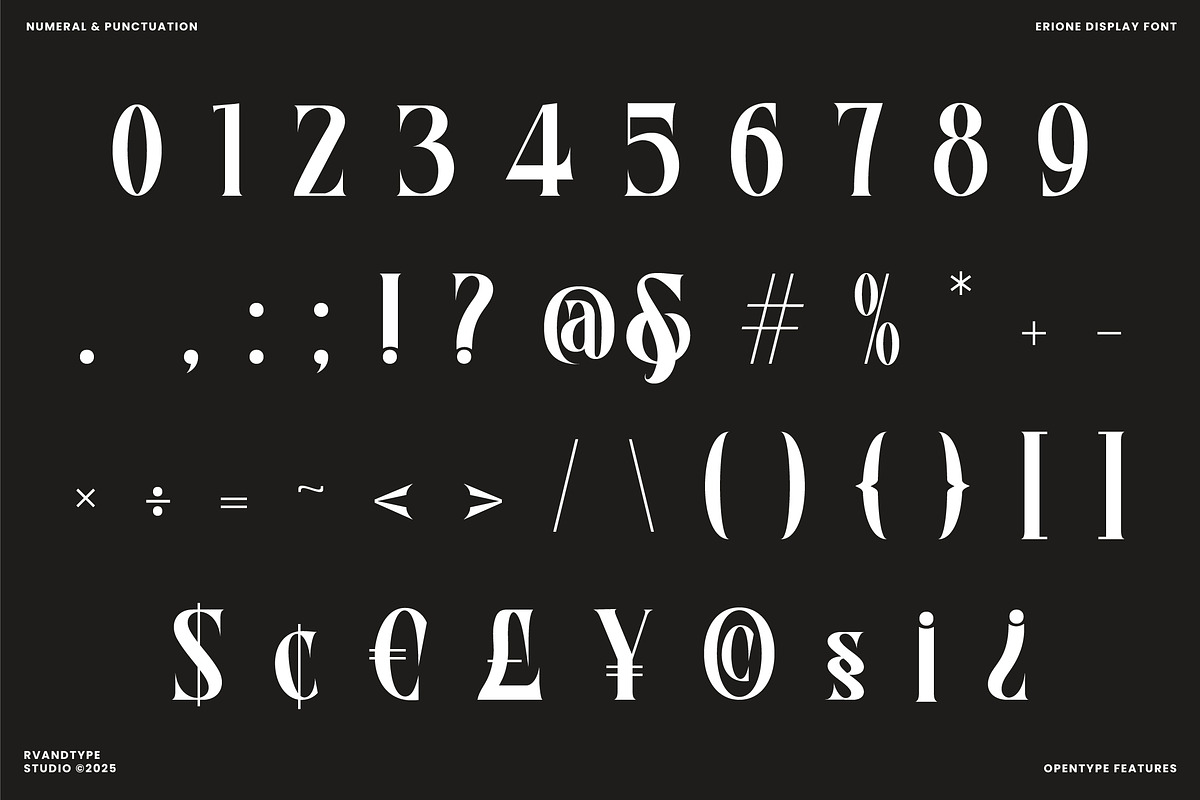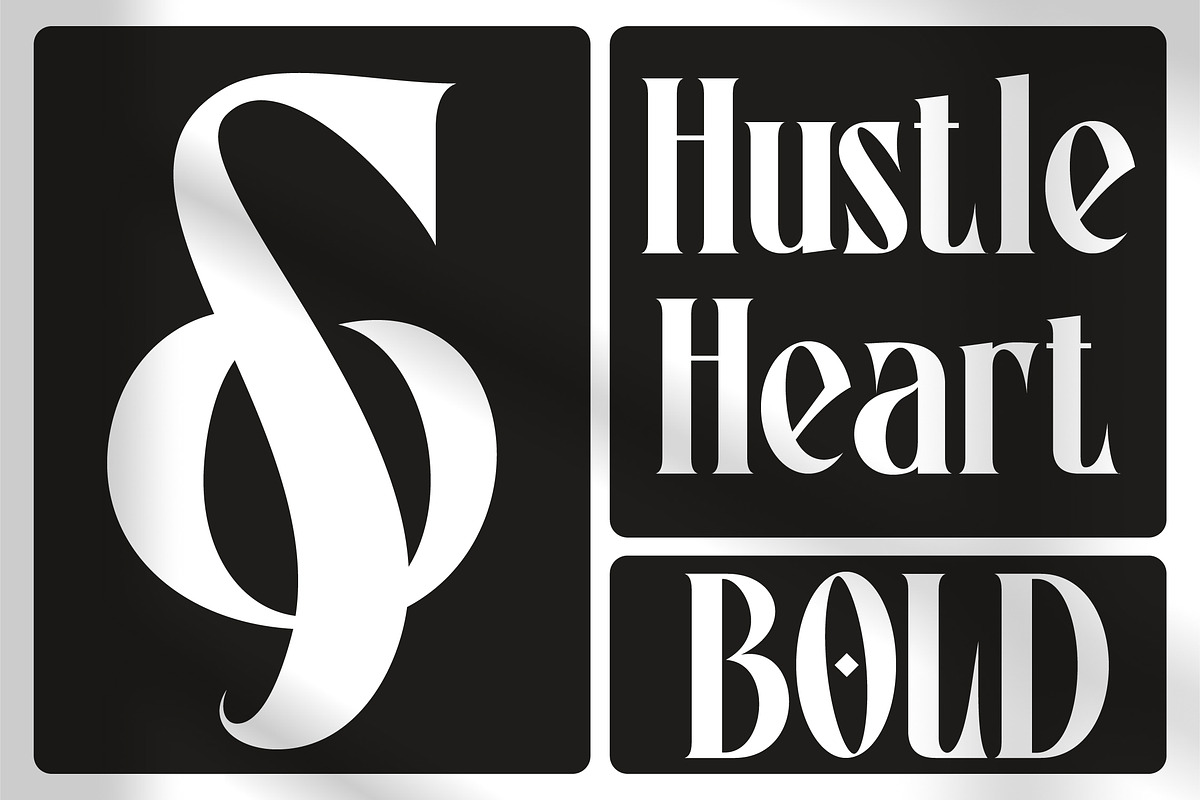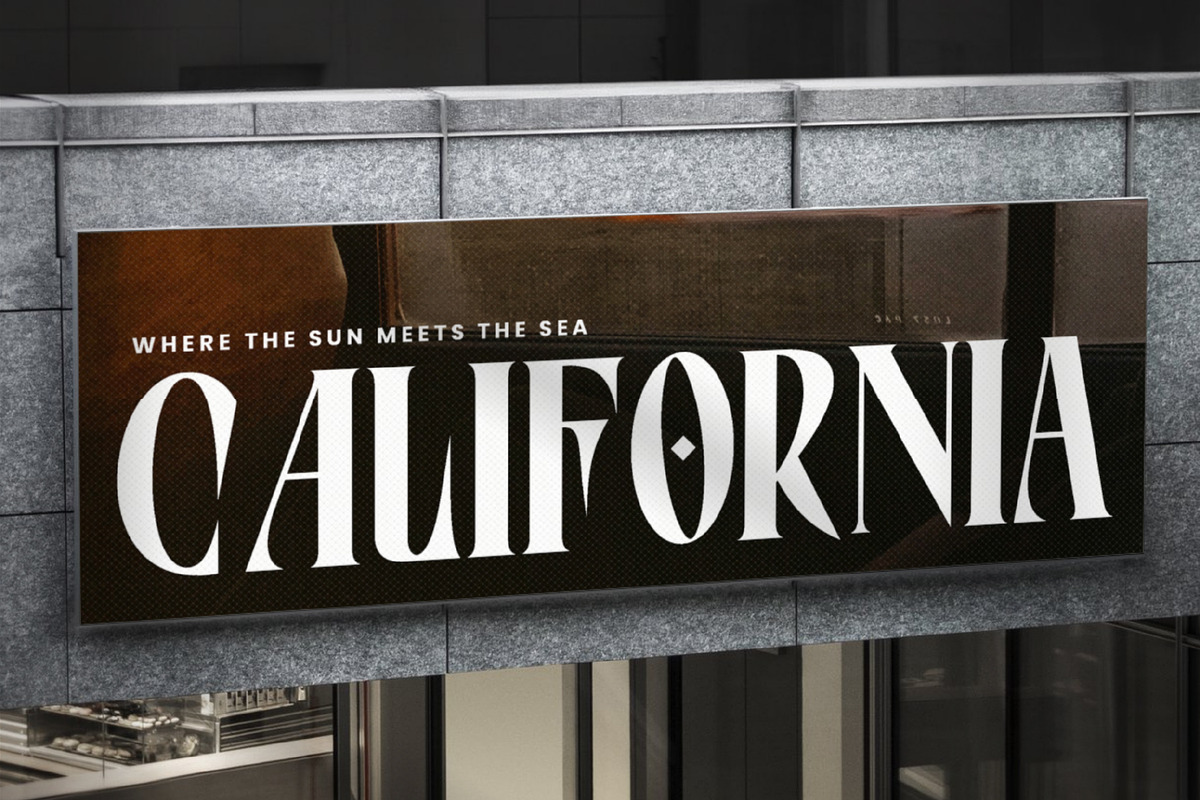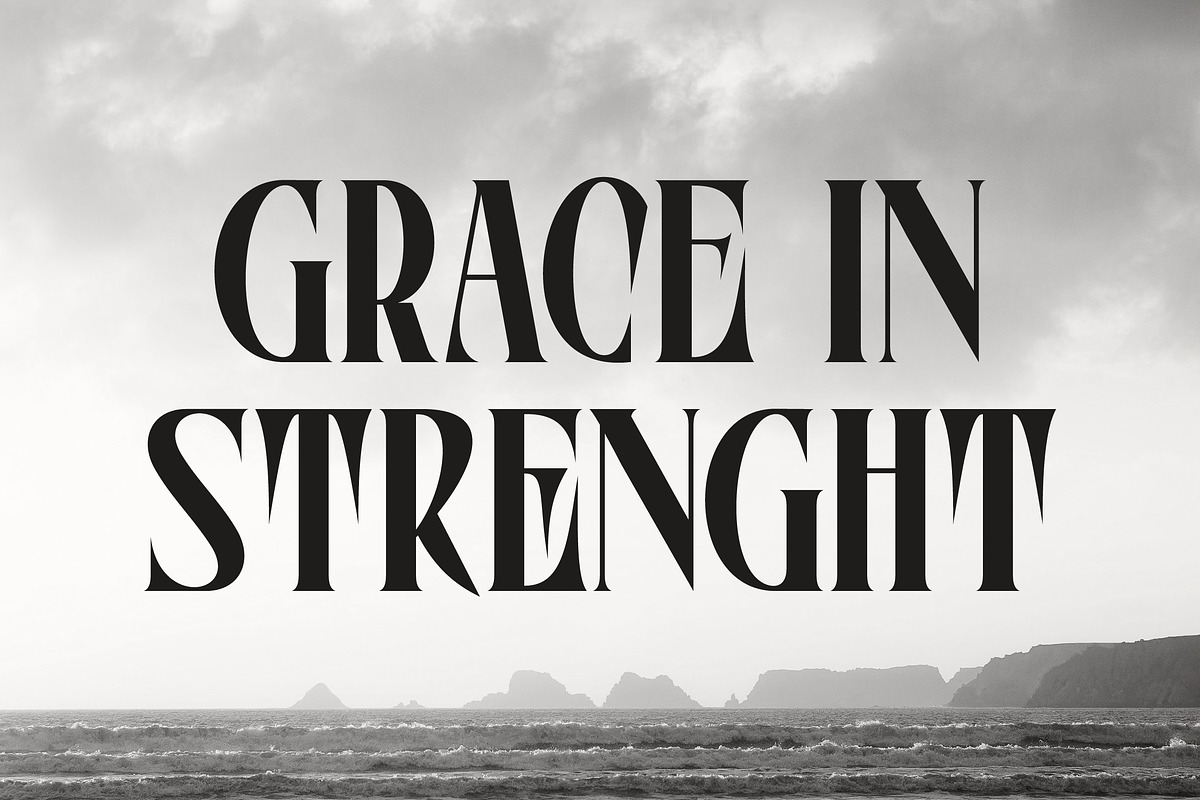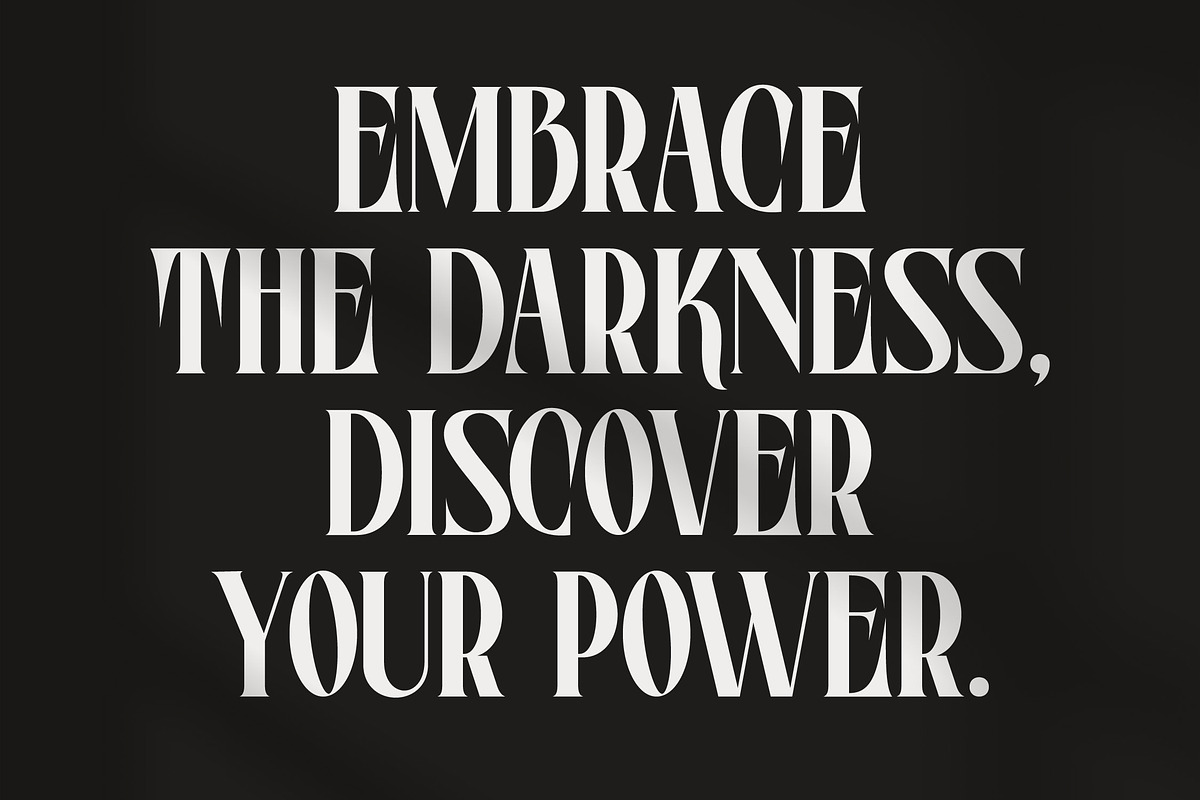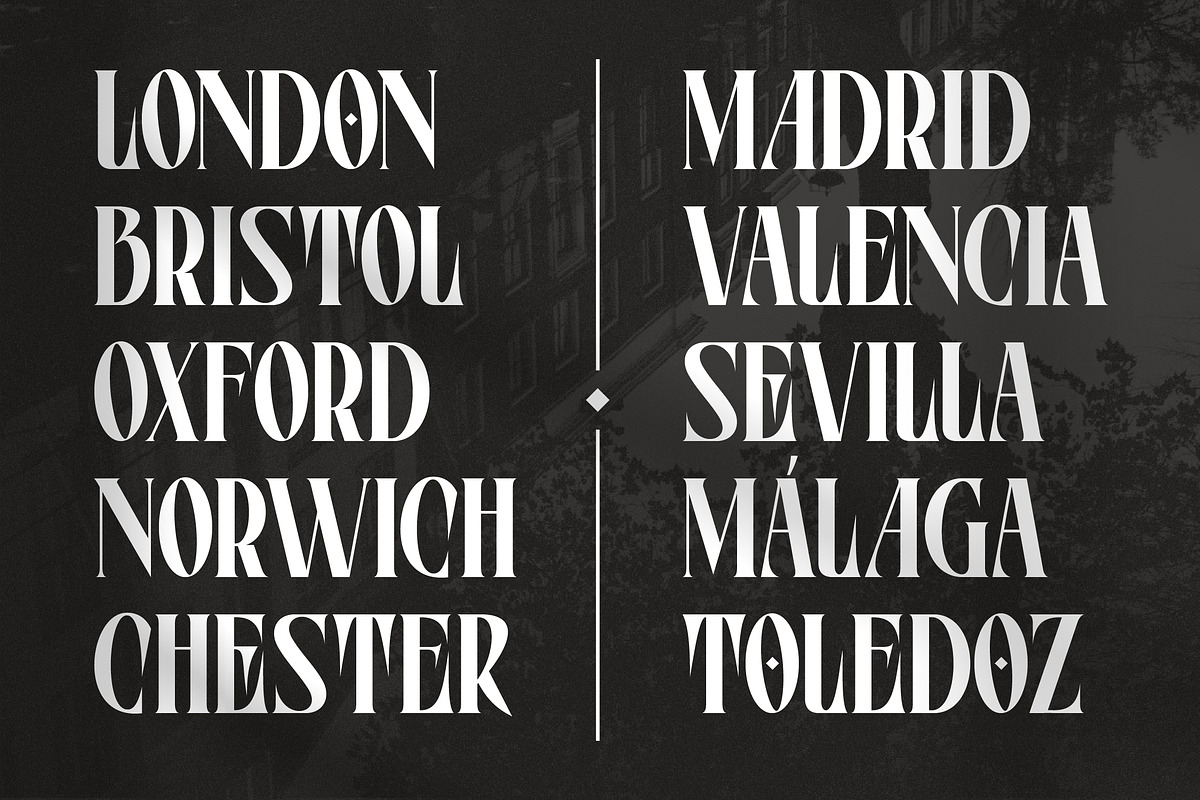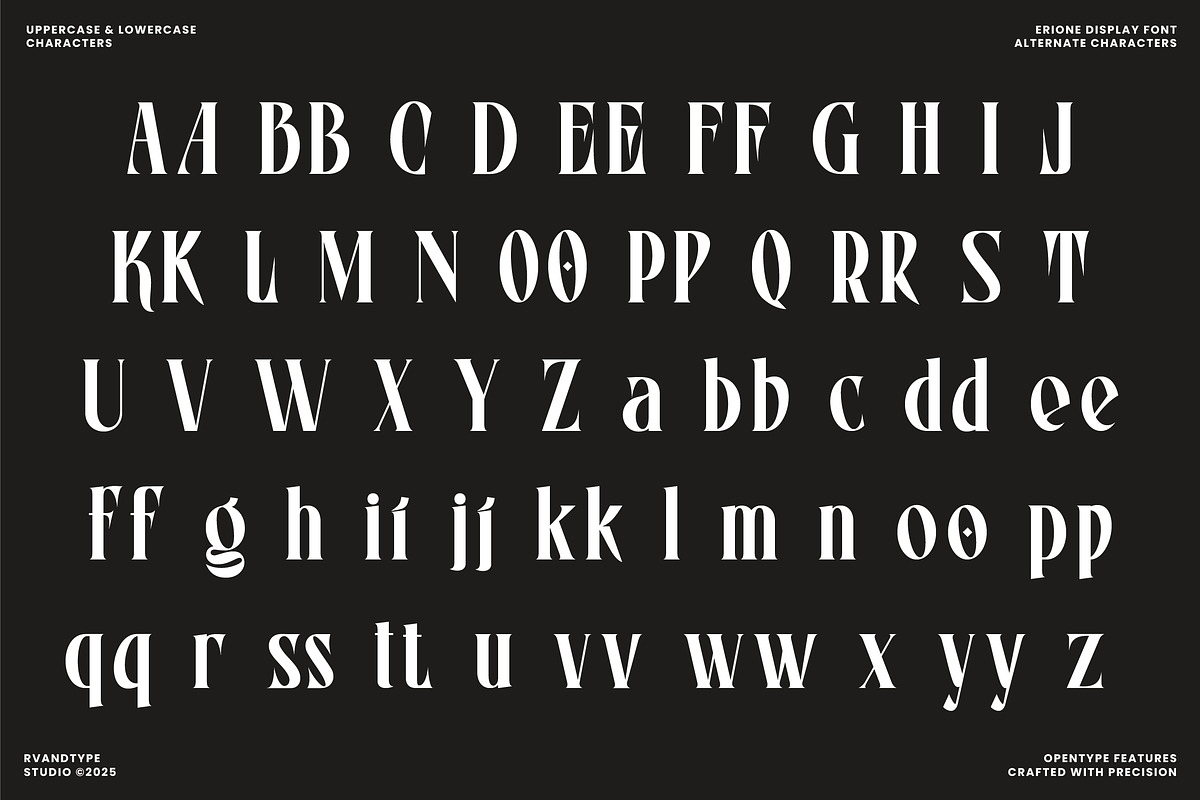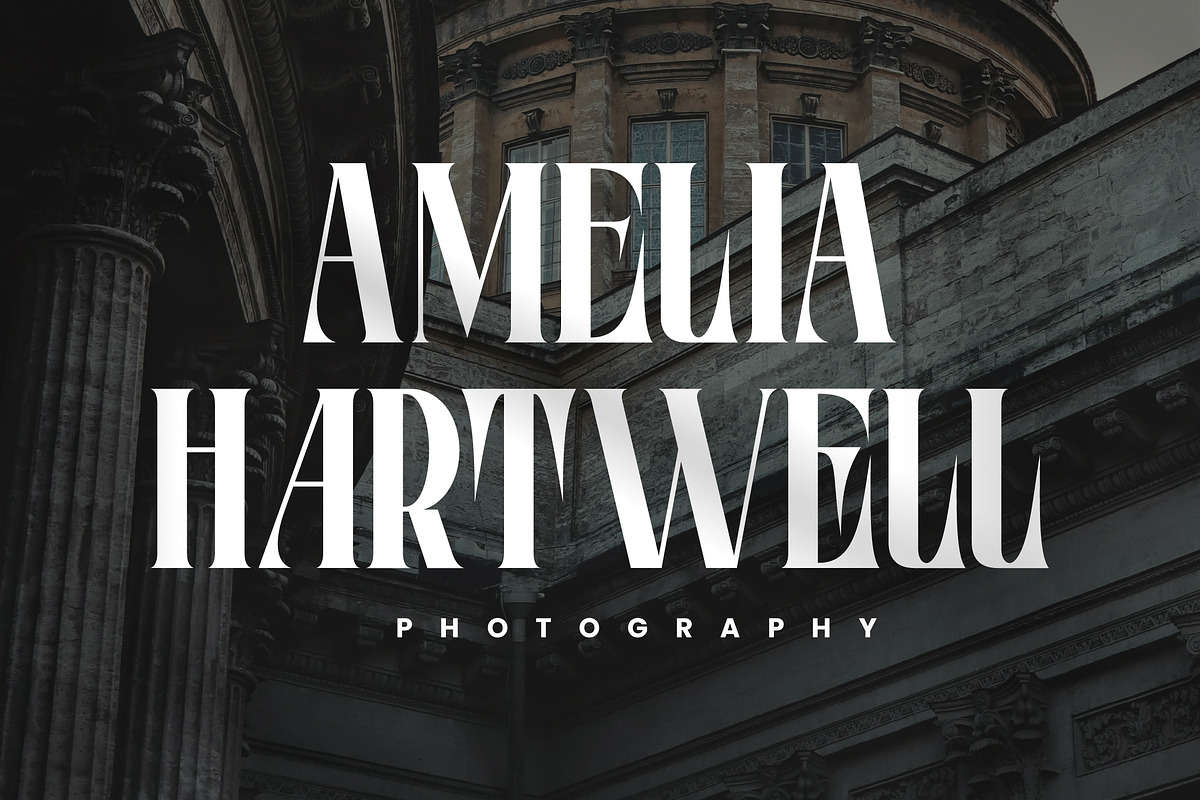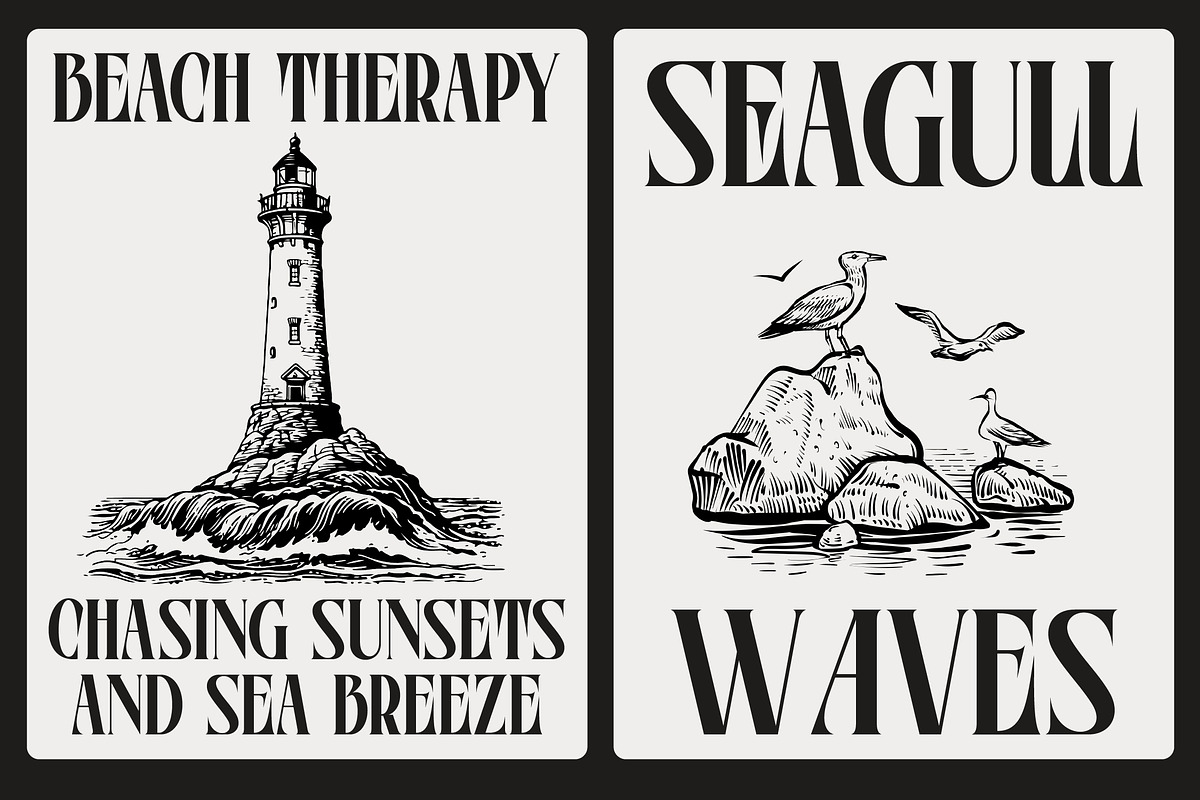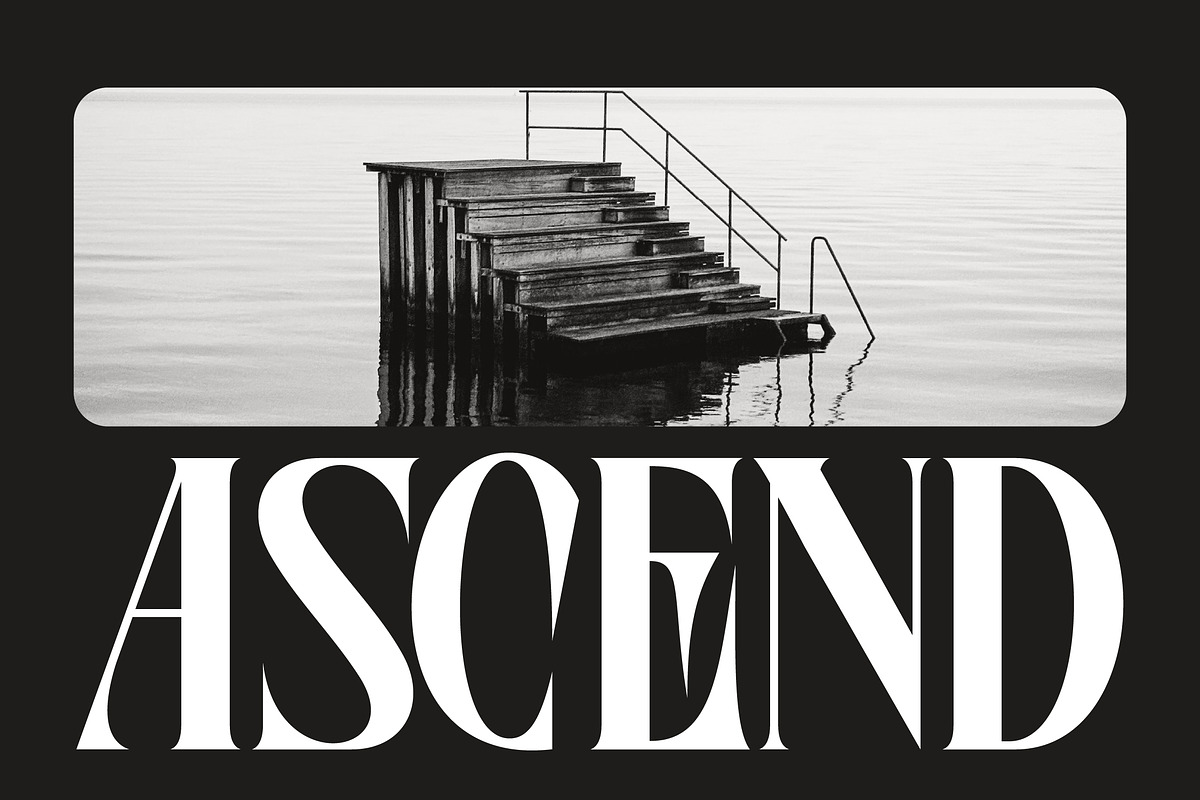
Erione – Bold Serif Font
Erione is a modern serif font with a bold, strong, and confident character, designed to deliver a powerful, professional, and premium look. With solid letterforms, sharp serif details, and clear stroke contrast, Erione creates a striking visual presence that makes your designs stand out.
This font is perfect for logos, branding, headlines, posters, editorial designs, packaging, and social media content that need a strong visual impact.
- Bold, strong serif character
- Alternate characters
- Logo & Brand Identity
- Headlines & Posters
- Packaging Design
- Fashion & Beauty Branding
- Social Media Content